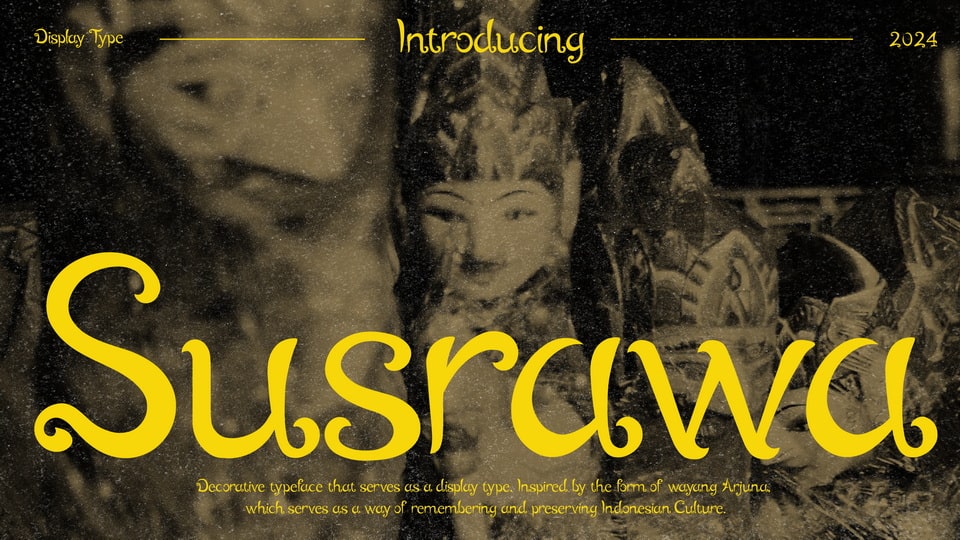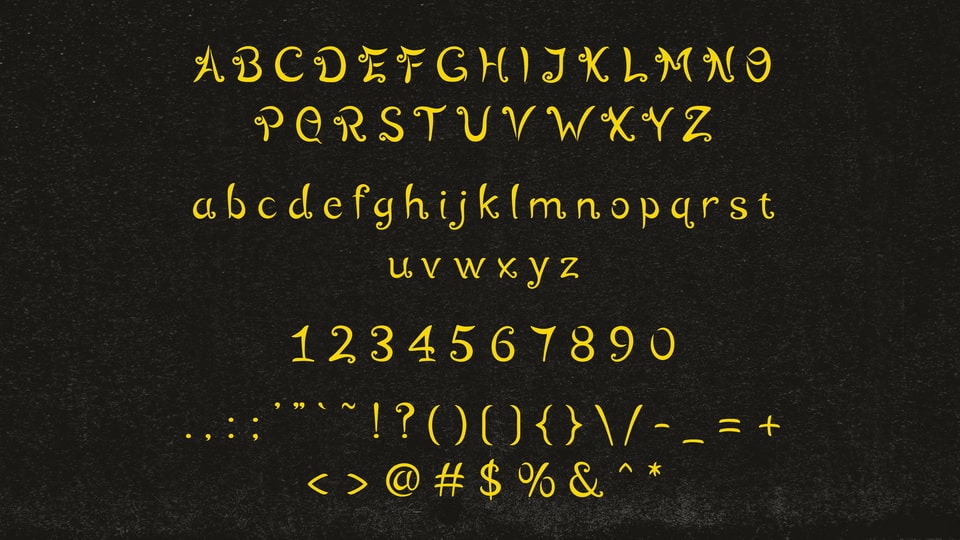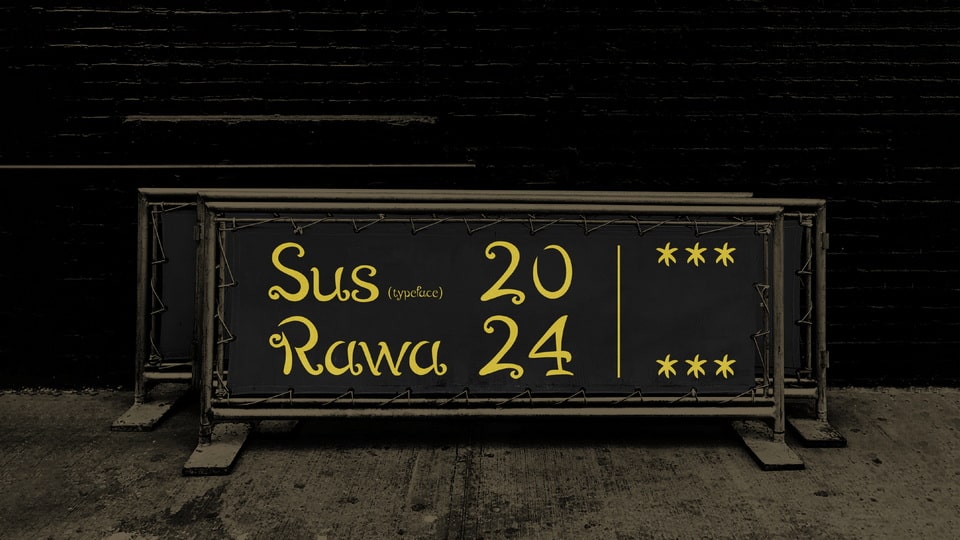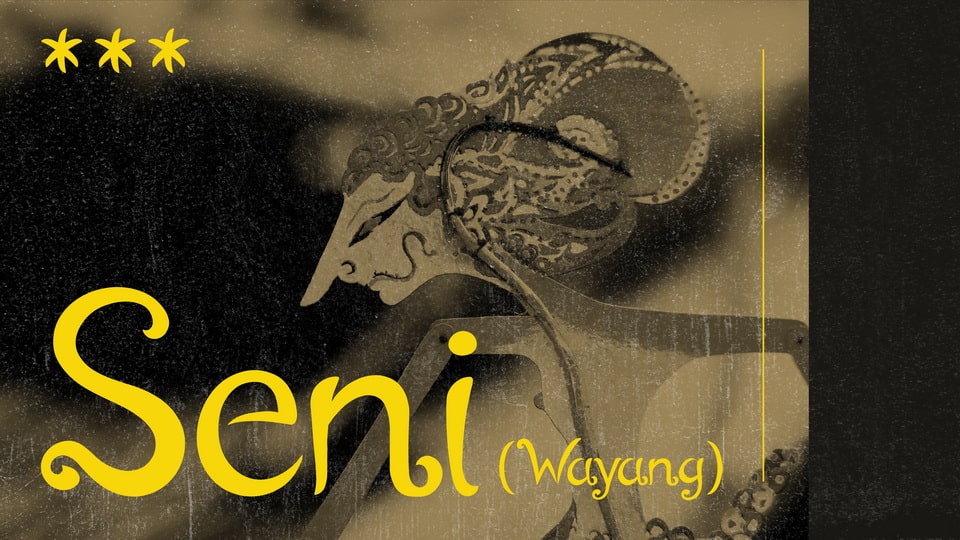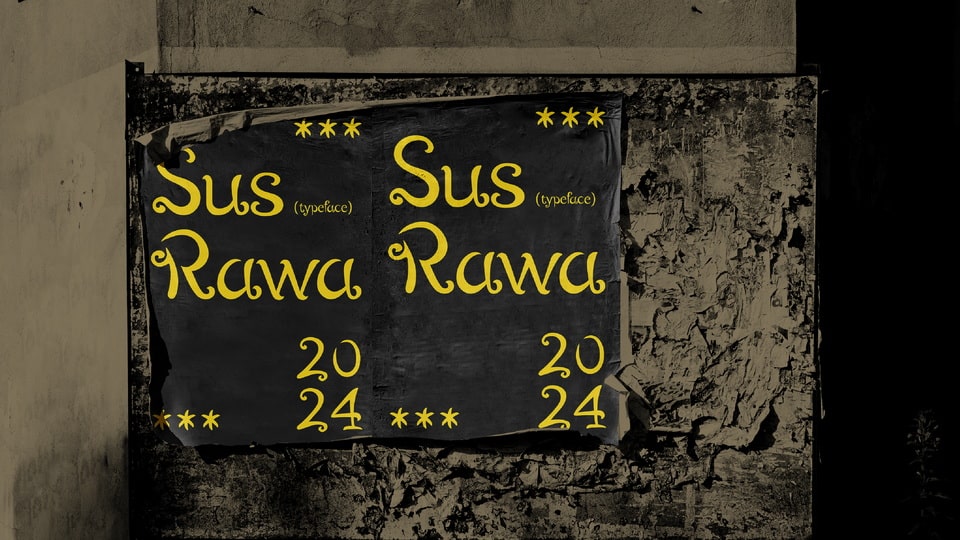
Suraswa
Susrawa is a decorative display typeface with soft, calligraphic curves and a strong Indonesian ornamental character. Its letterforms use rounded terminals, curled details, and flowing connections that give the alphabet a hand-shaped rhythm while staying upright and structured. The strokes are mostly low-contrast, with broad, smooth shapes that feel warm and expressive rather than formal. Spacing is regular and fairly open, helping the ornate forms remain readable at headline sizes. Its distinctive silhouettes suit short text, titles, posters, cultural themes, packaging, event graphics, and branding accents more than long reading passages.